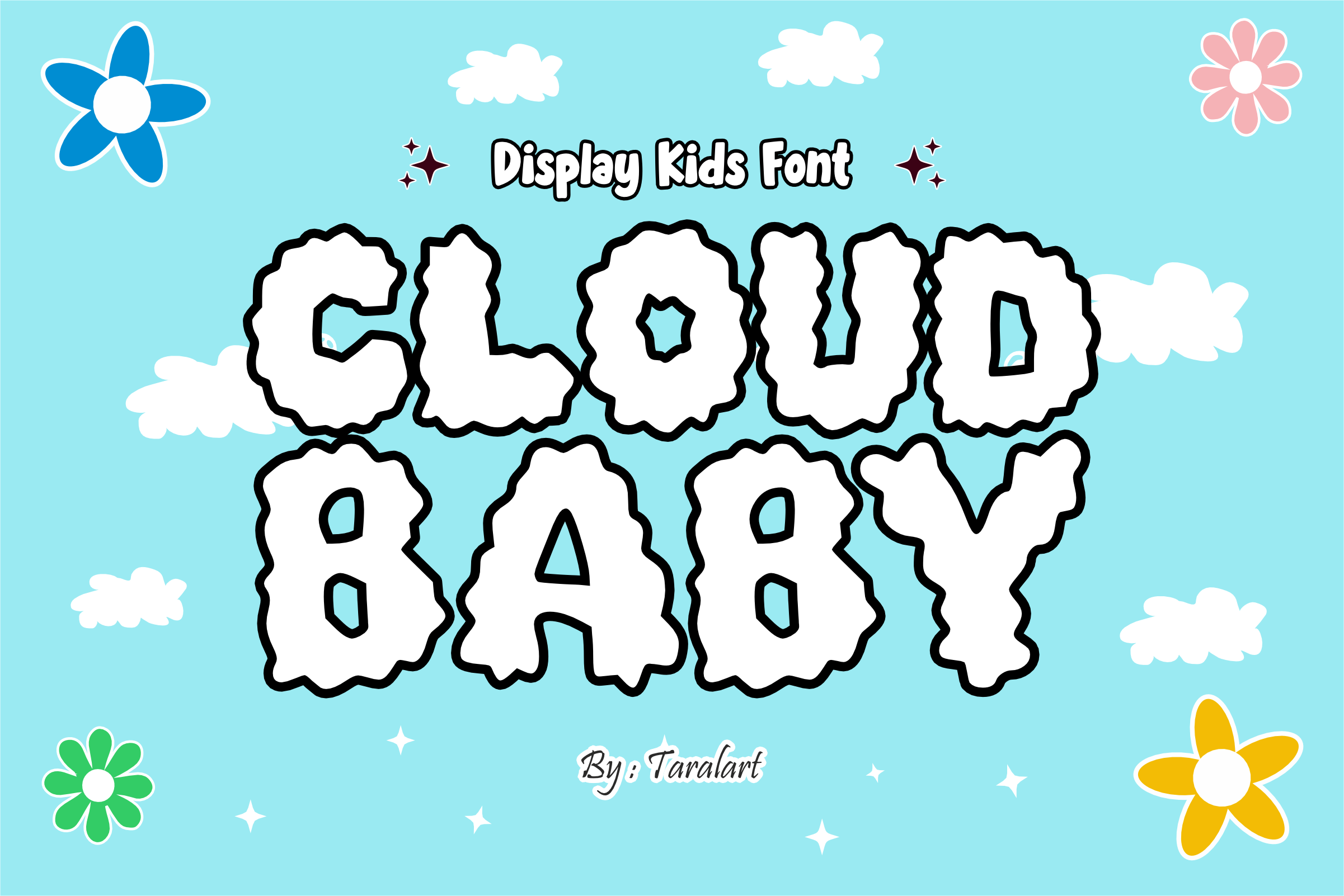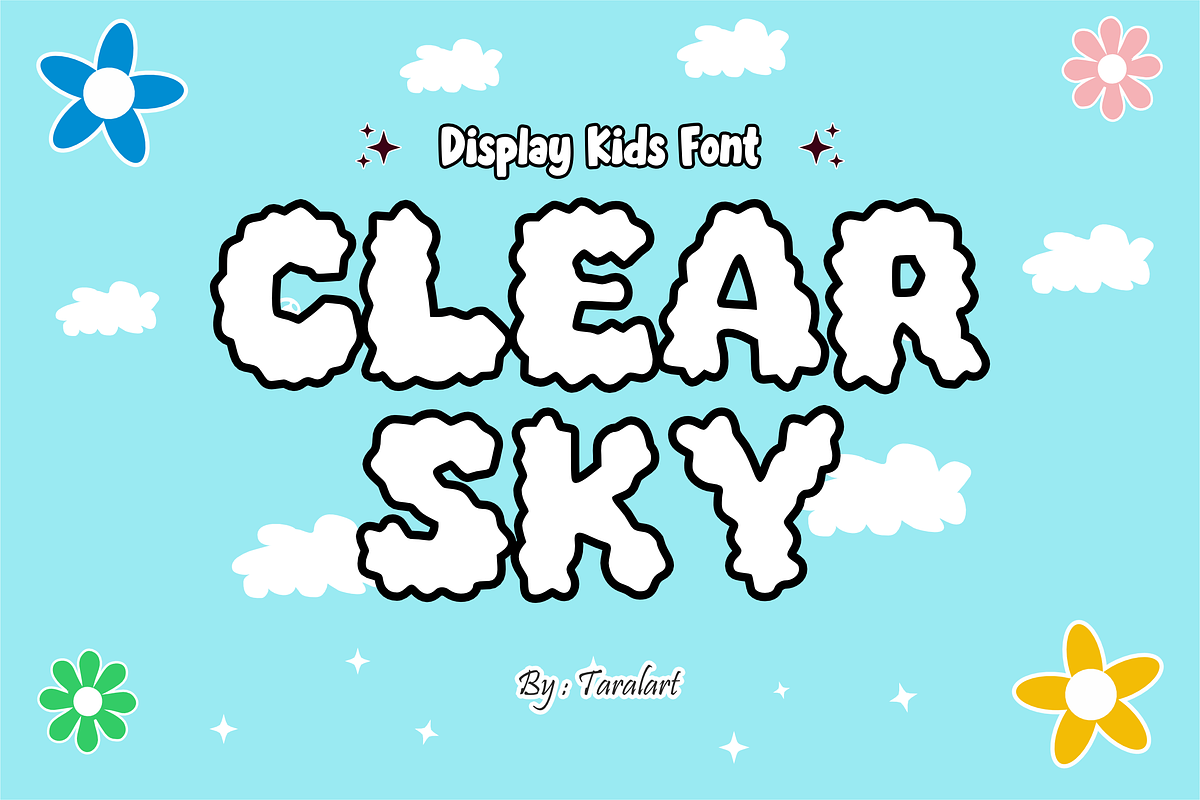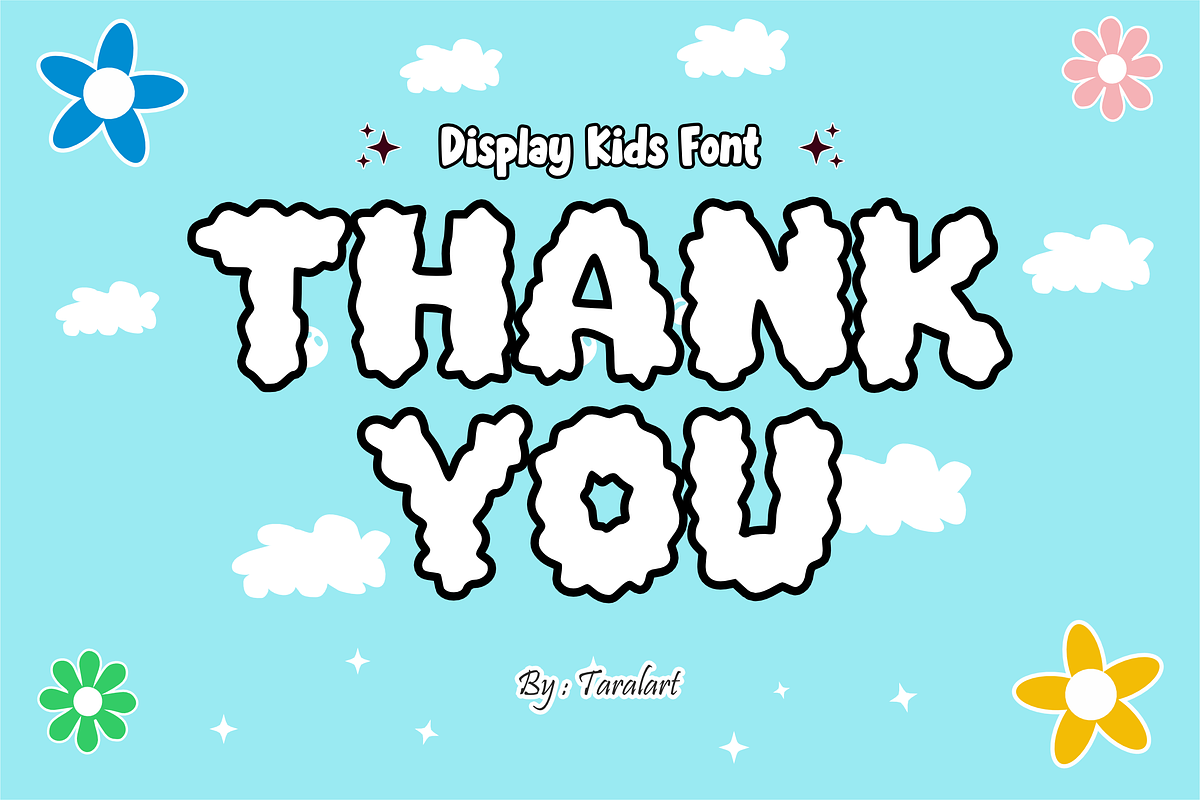
CLOUD BABY -Playful Fluffy Kids Font
CLOUD BABY - Playful Fluffy Kids Font
Float into a world of pure creativity with Cloud Baby! This ultra-cute display font features soft, puffy, cloud-like outlines that instantly bring a dreamy, whimsical, and happy vibe to your text. It is the perfect choice for making kids' headlines and titles look incredibly soft and inviting.
Designed with crafters and digital creators in mind, Cloud Baby masterfully pairs its unique bubbly aesthetic with excellent legibility. It is highly versatile, expressive, and fully optimized for flawless performance across digital cutting machine tools (like Cricut) and professional print workflows.
All-Caps Character Set (Chunky, puffy cloud uppercase letters)
Numbers & Basic Punctuation (Essential, simple symbols included)
Nursery Wall Art, Baby Shower Invitations, & Newborn Greeting Cards 🍼
Cricut, Silhouette, & DIY Kid-Friendly Craft Sublimation Projects ✂️
Children’s Book Covers, Dreamy Storybook Titles, & School Graphics 📚
Kids' Product Packaging, Toy Labels, & Birthday Party Decor 🎈
Custom Die-Cut Stickers, Playful Logo Branding, & Cute Apparel Prints 👕